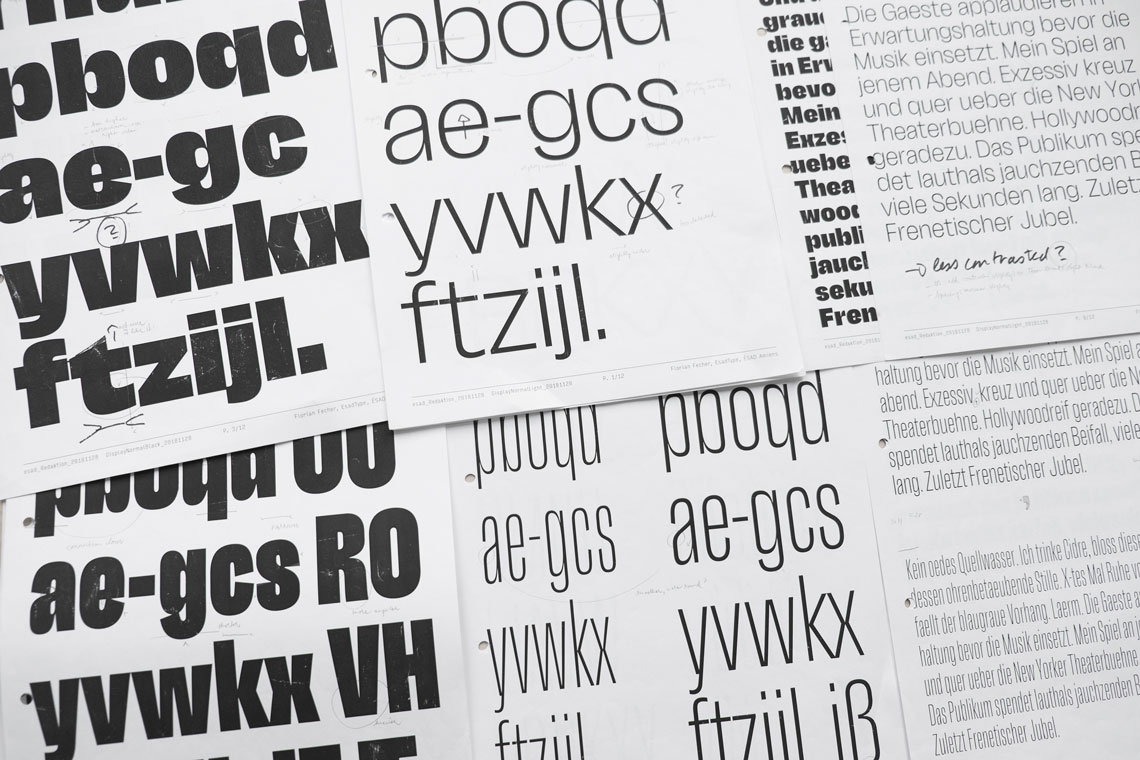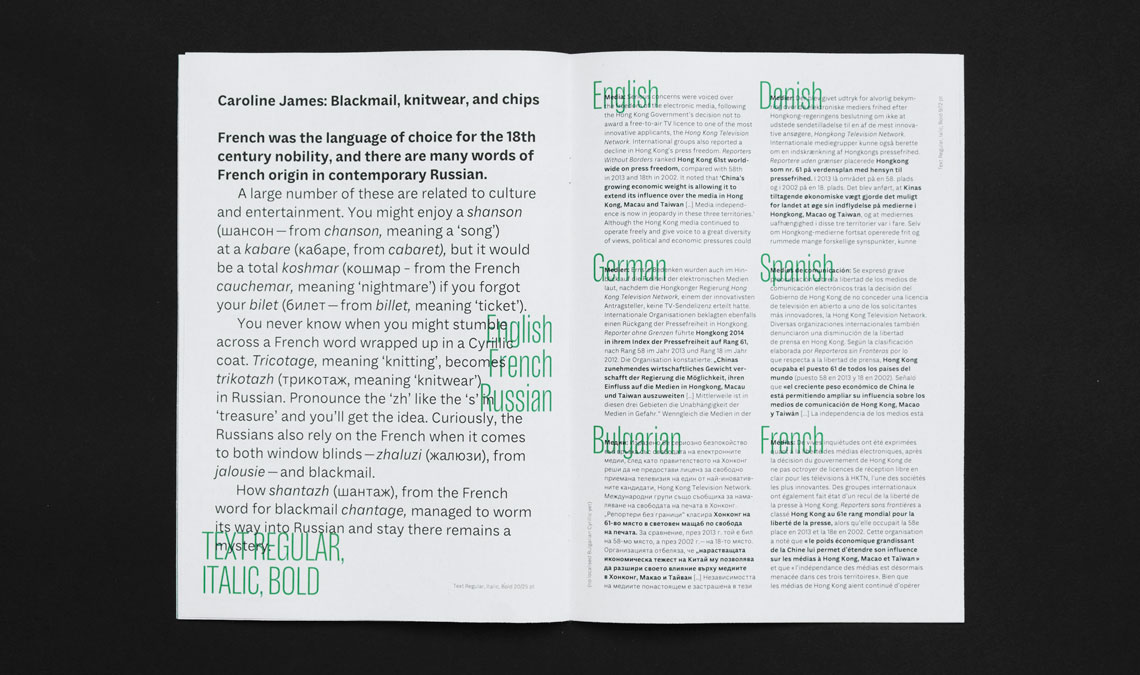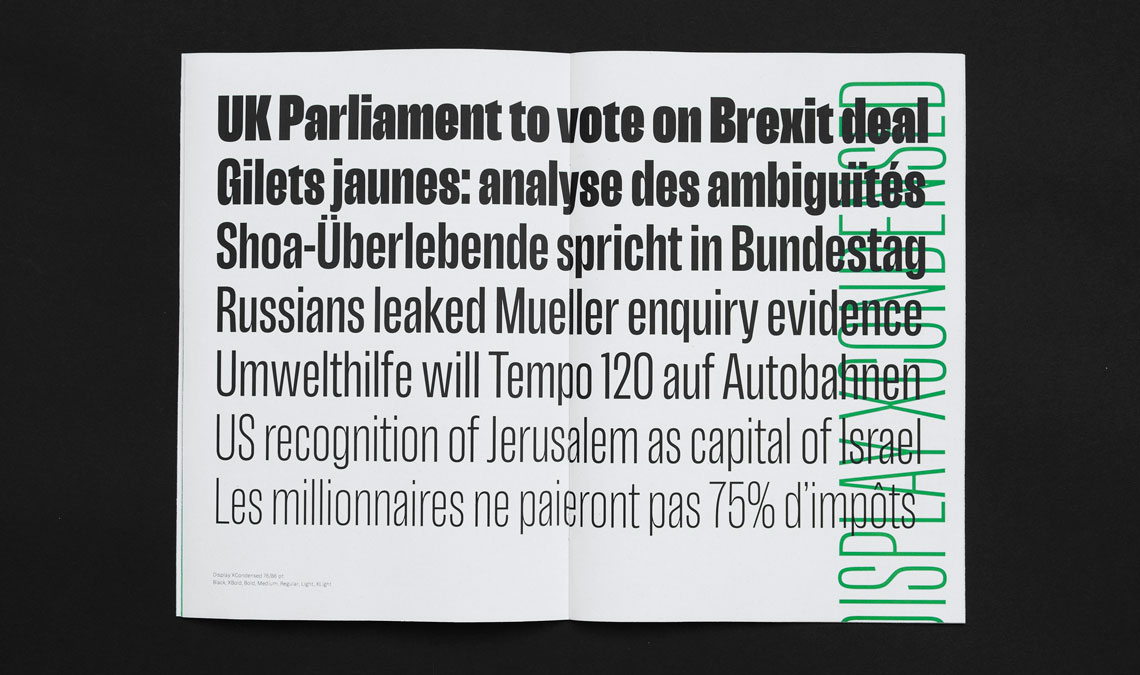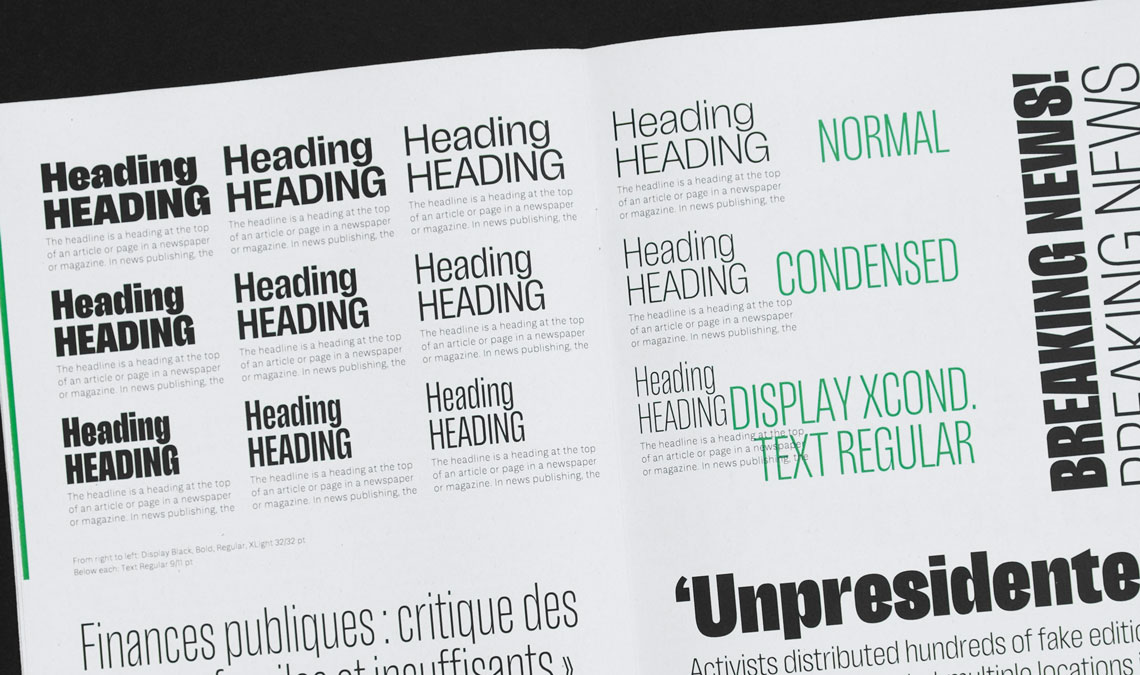
2019 Gerard Unger Scholarship result
We are delighted to announce the recipient of the 2019 Gerard Unger Scholarship result, Lektorat (previously Redaktion), a typeface by Florian Fecher developed while studying at EsadType.
This year our annual mentorship programme was renamed in honour of our late colleague Dr Gerard Unger. The Gerard Unger Scholarship was increased in scope, which the same could be said of the winning submission: a wide-ranging project by Florian Fecher. As an editorially focused type foundry, Florian’s work fit with our passion and the design has much promise. The team had a quick introductory video chat with Florian to congratulate him.
1. Qutub News by Namrata Goyal, student at KABK. A serif and sans type system for Indian newspapers, including Devanagari, Latin, and Nastaliq.
2. Girandengo by Tania Chacana, Sergio Martins & Dominic Stanley, students at the University of Reading. A workhorse serif type family.
We received a total of 27 projects from 10 international universities and type programmes. The typefaces, balanced between serif and sans, all included the Latin script and in 15 occasions were accompanied by another script: Cyrillic (4), Greek (2), Bengali (1), Devanagari (1), Hebrew (1), Urdu (1), Arabic (4), and Chinese (1).
Special Mention: Qutub News by Namrata Goyal, student at KABK.
Special Mention: Girandengo by Tania Chacana, Sergio Martins & Dominic Stanley, students at the University of Reading.